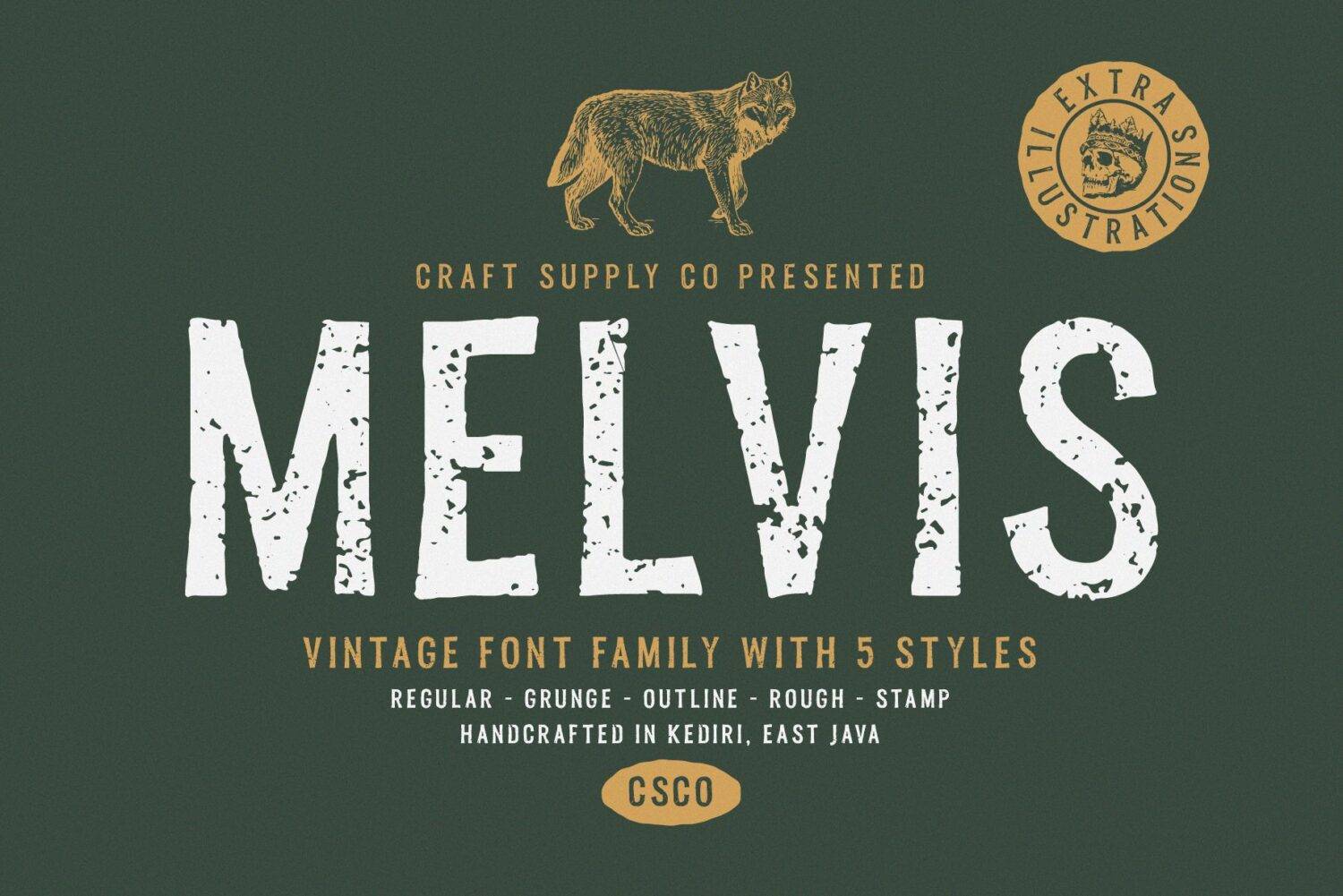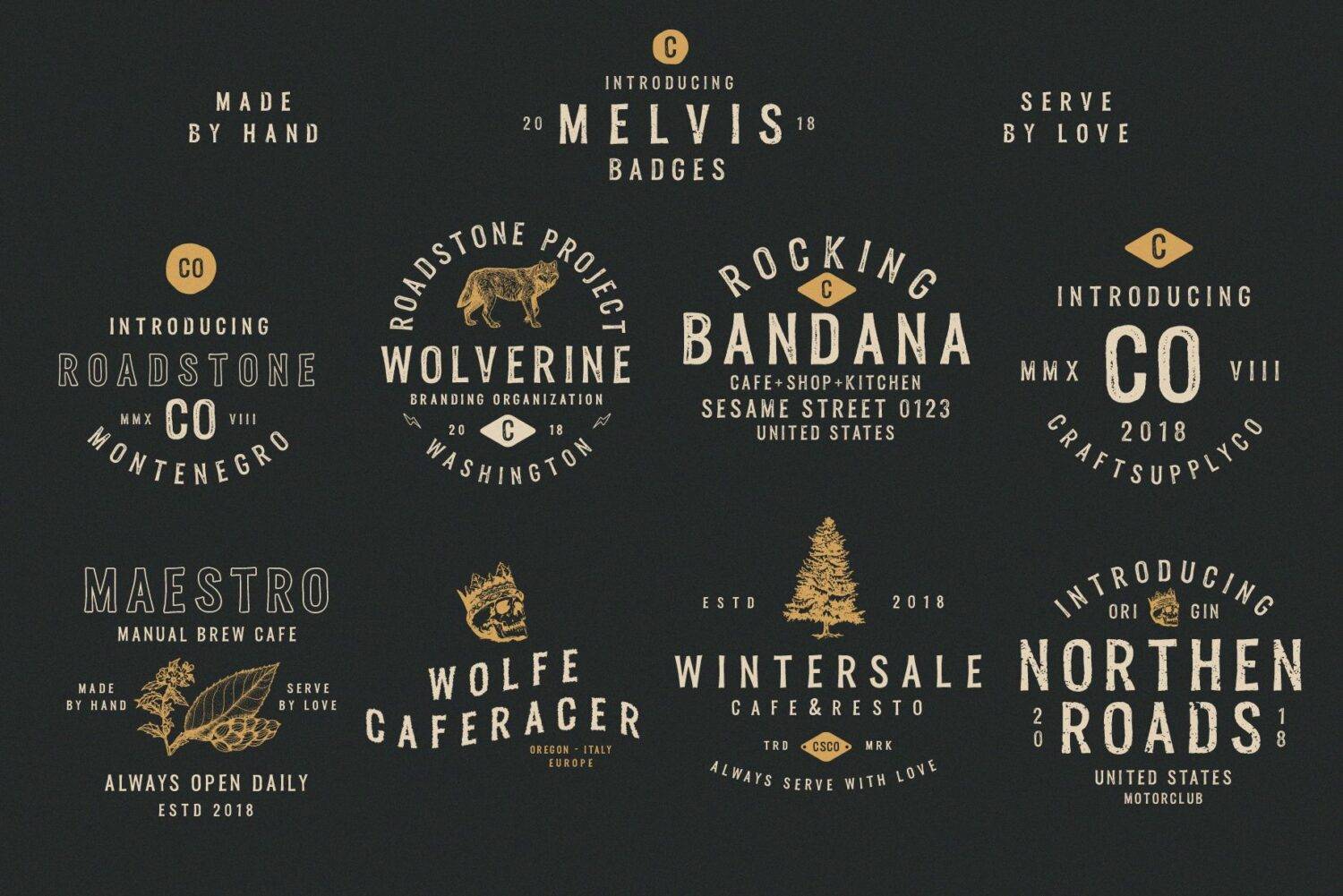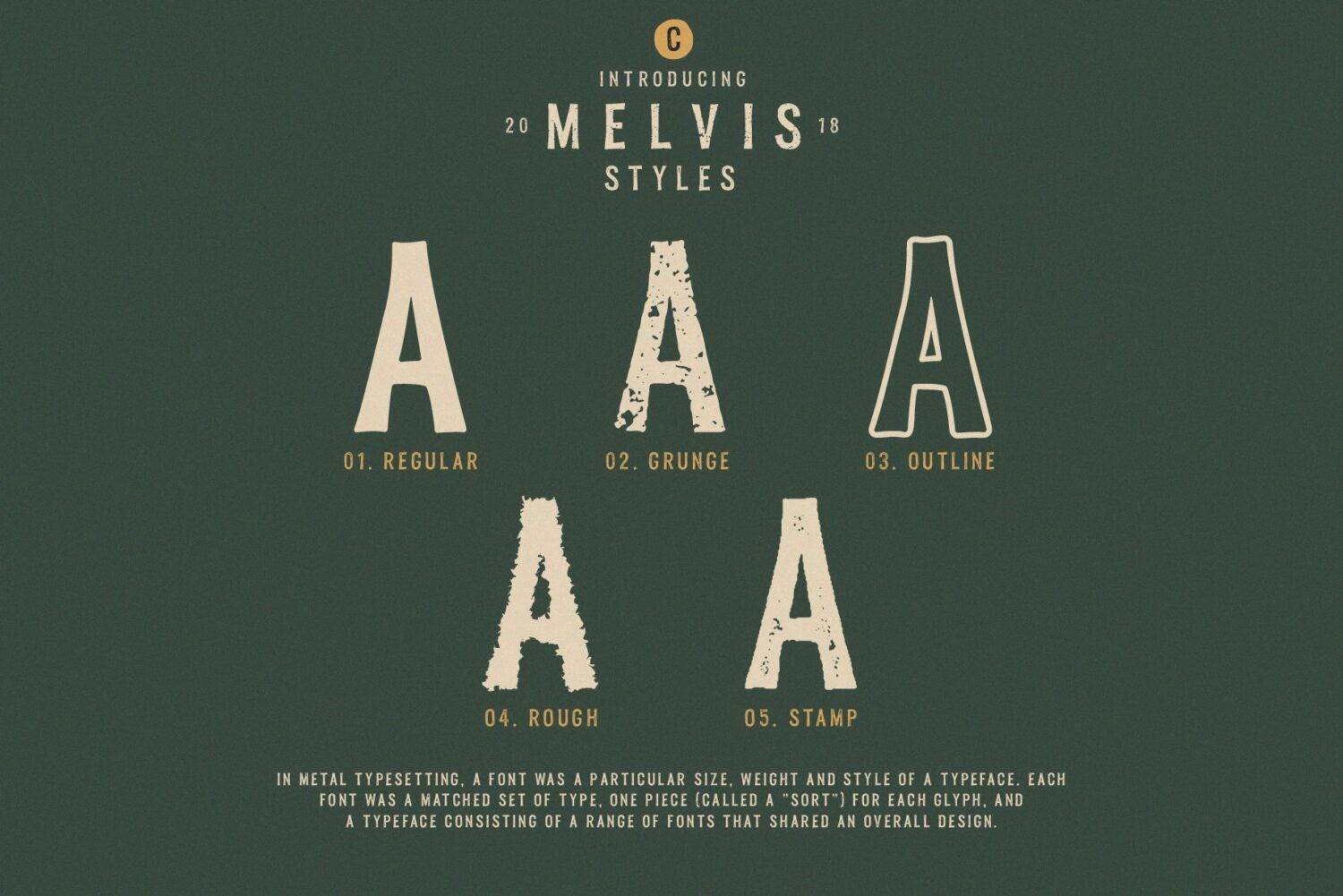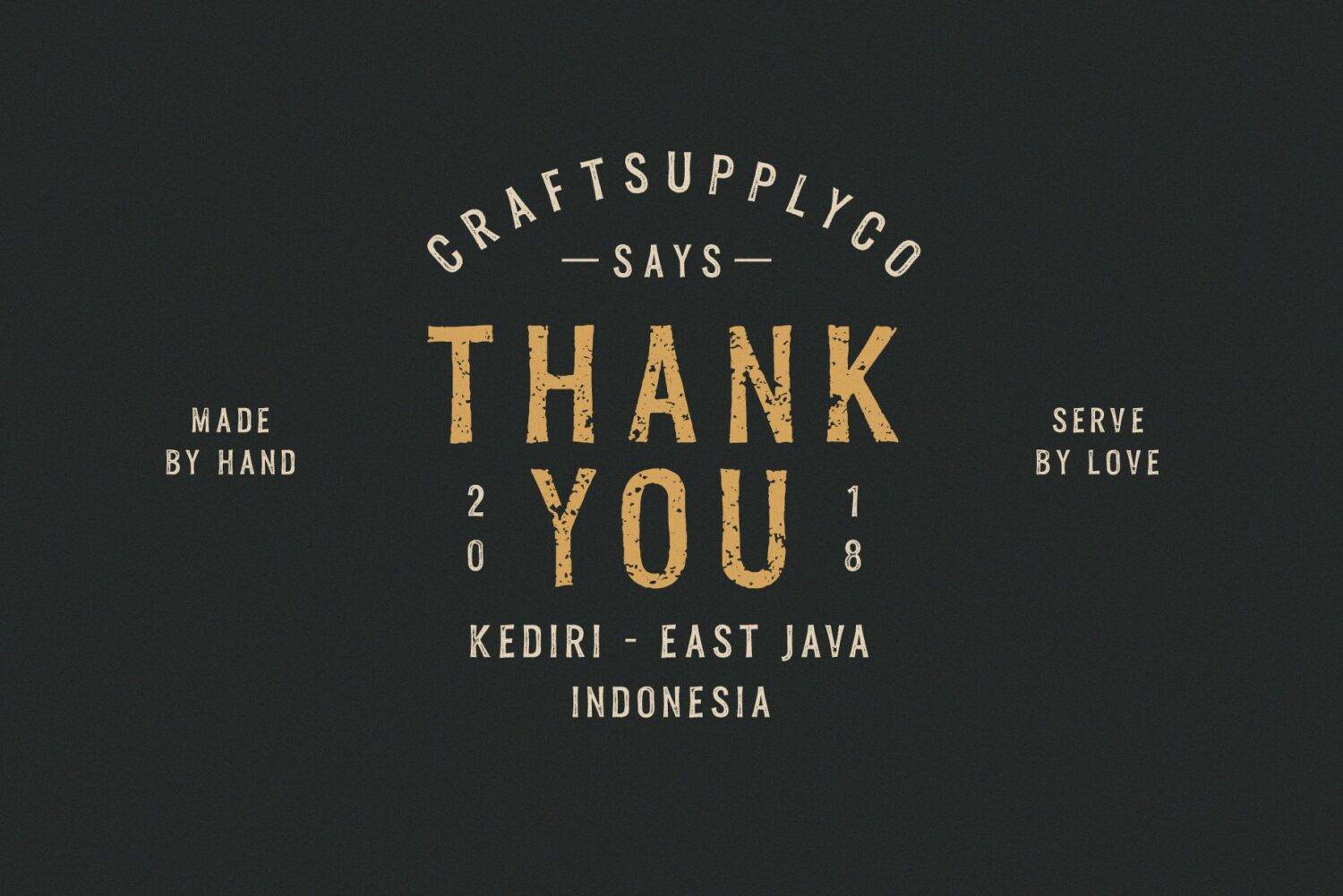
Melvis Font is a bold, narrow sans serif with a distressed texture that gives it a rugged, vintage feel. Its tall, condensed letterforms and rough edges convey a strong, gritty personality, making it perfect for impactful headlines, posters, and branding that aims for an edgy, hand-crafted look. This font works well where a bold, attention-grabbing style with a raw, authentic vibe is needed.
Melvis Font
About Melvis Font
| Font family | Melvis Font |